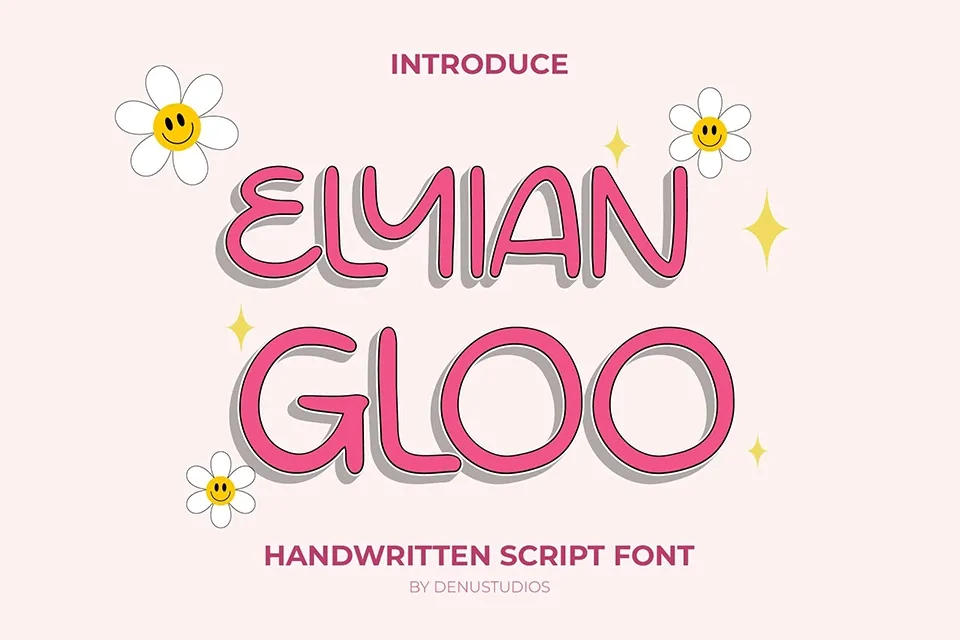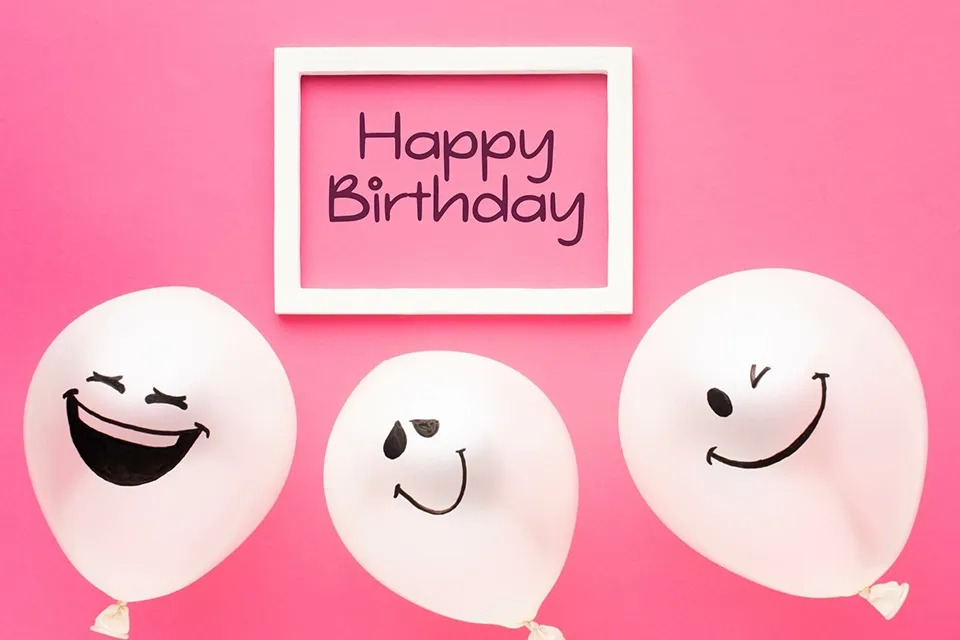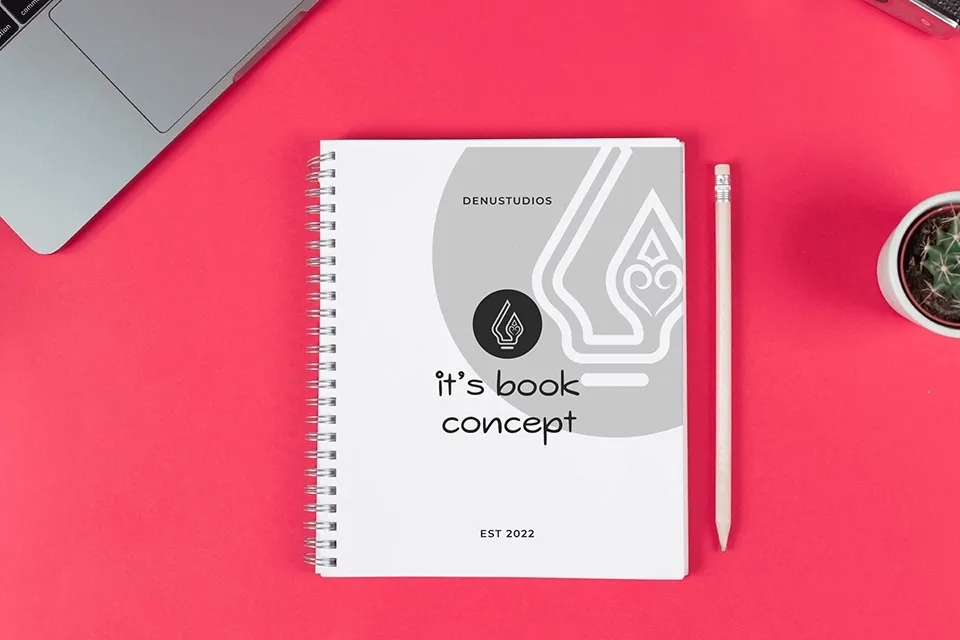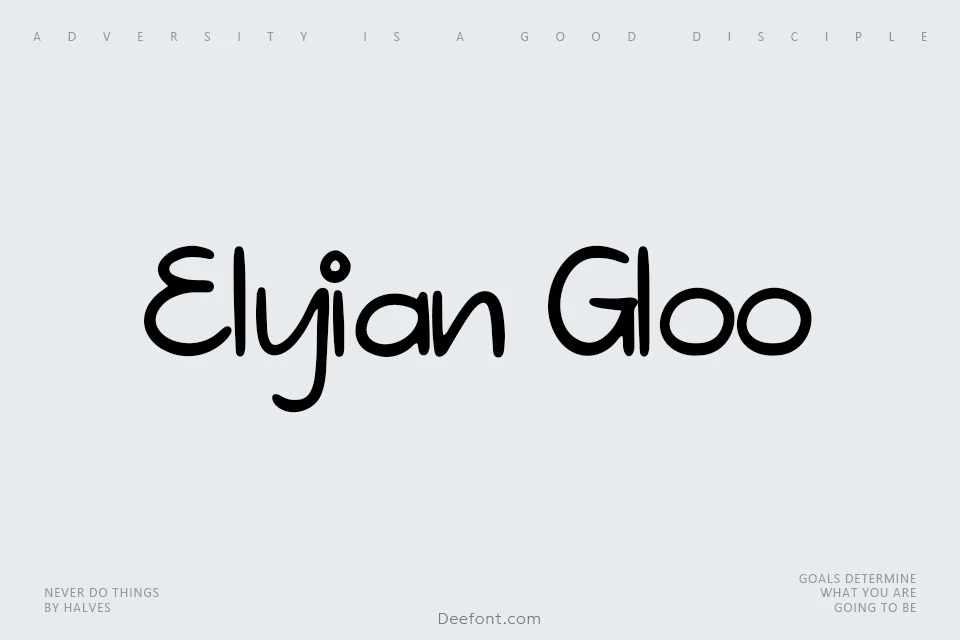
Elyian Gloo Font
Elyian Gloo Font is a playful handwritten script typeface designed to bring a cheerful and friendly vibe to any project. Its rounded, bubbly letterforms and bold outlines create a fun, approachable look that stands out in both digital and print designs. Accented with charming details like smiley flowers and sparkles, Elyian Gloo is perfect for children’s books, greeting cards, posters, and branding that needs a touch of whimsy. The font’s casual, hand-drawn style ensures excellent readability while adding personality and warmth, making every message feel joyful and inviting. Elyian Gloo is ideal for creative projects that aim to spread happiness.